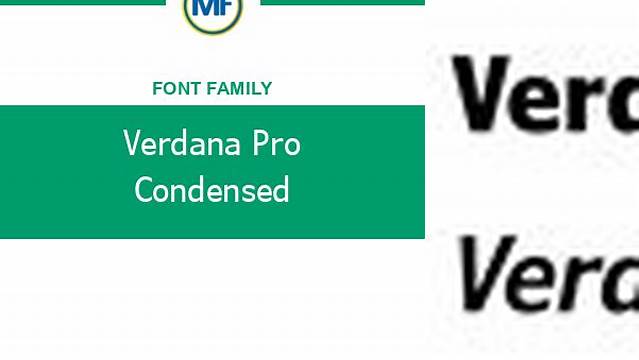
Hey guys, are you on the hunt for a sleek, professional font that's perfect for both your online and print projects? Look no further! The Verdana Pro Condensed font, a variation of the classic Verdana font, is a fantastic choice. And guess what? You can get a Verdana Pro Condensed font free download! This article is your ultimate guide to finding, understanding, and utilizing this amazing font. Let's dive in, shall we?
1. Understanding the Elegance of Verdana Pro Condensed
Alright, first things first: Why is Verdana Pro Condensed so awesome? Well, it's all about that balance, my friends. It’s a narrower version of the already legible Verdana font, meaning it saves space without sacrificing readability. Imagine fitting more words on a line without the squint factor! That's the magic of the condensed style. This font is a workhorse, ideal for everything from body text in articles and websites to headlines and even smaller text in tables or forms. Its clean lines and slight variations make it easy on the eyes, ensuring your audience enjoys reading your content. Whether you're a designer, a blogger, or someone who just loves a well-designed document, having Verdana Pro Condensed in your font arsenal is a win-win. The best part? It’s incredibly versatile. You can use it for a variety of purposes and projects and it will always be a great choice. Consider using it for branding, creating documents, or even designing an app interface. The uses are limitless, and the impact on your audience is undeniable. It really shines when you need to squeeze more content into a limited space, be it a website layout, a brochure, or a presentation. This font is a subtle hero, always working to enhance the visual appeal and readability of your content. Plus, there are many options of this font that can be downloaded for free. This way, it provides access to high-quality typography without breaking the bank. If you're looking for a font that combines functionality with a touch of sophistication, Verdana Pro Condensed should be at the top of your list.
1.1. The History and Evolution of Verdana
Let's take a quick trip down memory lane, shall we? Verdana's origins are rooted in the quest for a highly legible font designed specifically for on-screen display. Conceived by Matthew Carter and commissioned by Microsoft in the mid-1990s, it was meant to be easily readable at small sizes and low resolutions—a critical consideration back in the early days of the internet. Its creator, Matthew Carter, is a legend in the typography world, and he brought all his expertise to the table. The goal was simple: to create a font that was accessible and user-friendly, regardless of the screen quality. This font quickly became a go-to for web designers. Its clear, unadorned design ensured that text remained readable, even on less-than-ideal displays. The evolution from Verdana to Verdana Pro Condensed is a testament to adapting to changing design needs. The original Verdana was already a success story, known for its readability and friendly appearance. However, the demand for space-saving fonts led to the creation of the condensed version. This modified version retains all the qualities that made the original popular, but with a narrower design that allows for more text on a single line. This makes it perfect for fitting more information into tighter spaces, without sacrificing readability. This font helps people to improve their project easily. The development of this font is a significant part of the evolution of digital typography, and is a reflection of the changing world. It shows how designers continuously seek to improve their work and adapt to the needs of the users.
1.2. Why Verdana Pro Condensed Stands Out
Okay, so what makes Verdana Pro Condensed better than the other fonts out there? Let's break it down. First off, there's its incredible legibility. Even at small sizes, the characters remain distinct and easy to read. This is perfect for websites, applications, and any other place where text needs to be clear and concise. Then there’s the professional feel it brings. The font's clean lines and straightforward design give your content a polished, modern look. Whether you're designing a formal document or a friendly blog post, the font fits right in. Another great thing about this font is that is incredibly versatile. You can use it for headings, body text, and even in tables or navigation menus. It seamlessly integrates into a wide range of design styles. Also, the condensed nature of the font helps you make the most of your space. It's a great choice when you want to fit more content into a limited area without making the text appear cramped. This is especially handy in responsive design. Finally, the font is widely available and supports many languages, which means that the font can be used by everyone, and helps improve the project of everyone. All of this makes this font a strong choice for any design project.